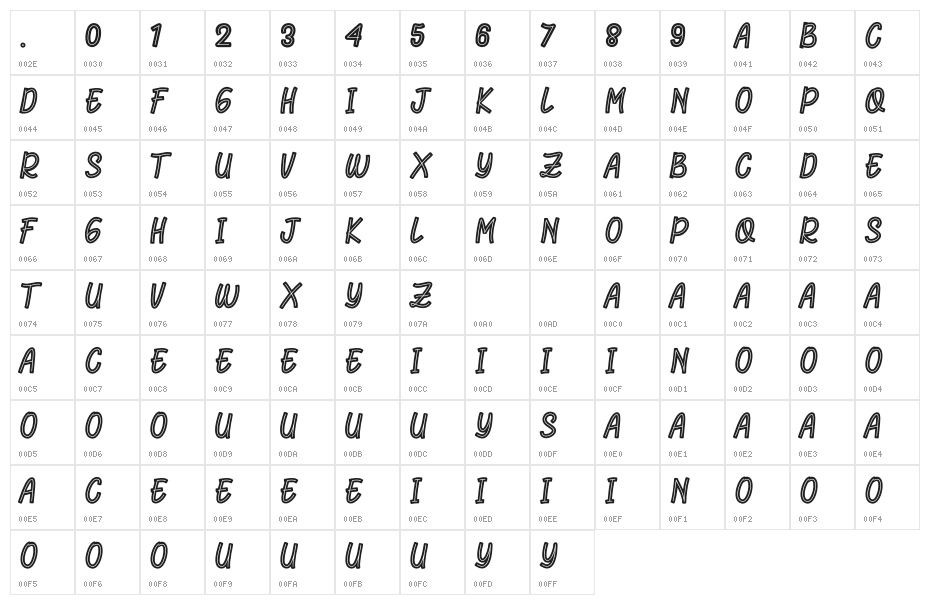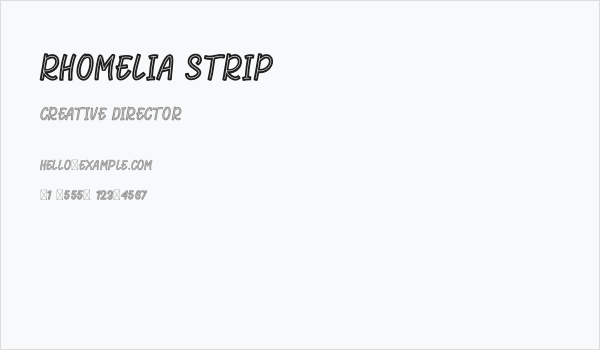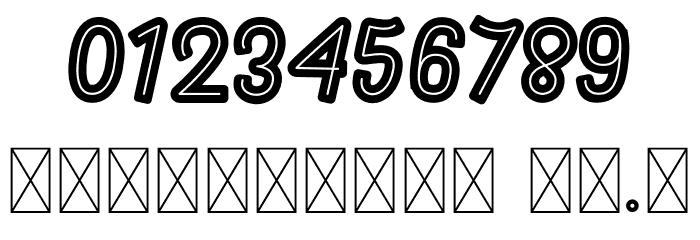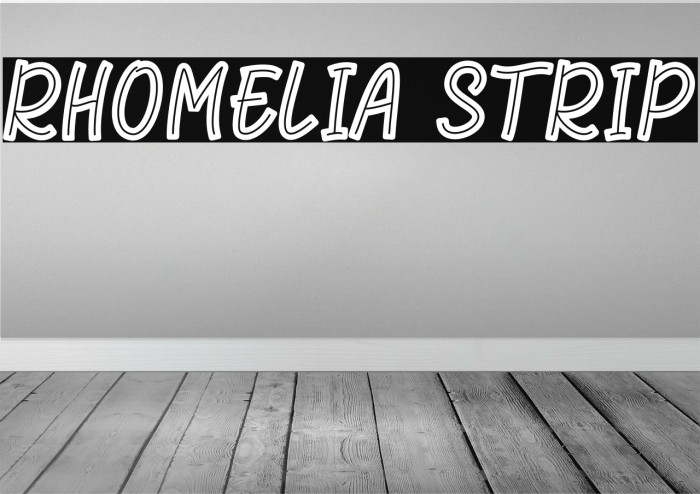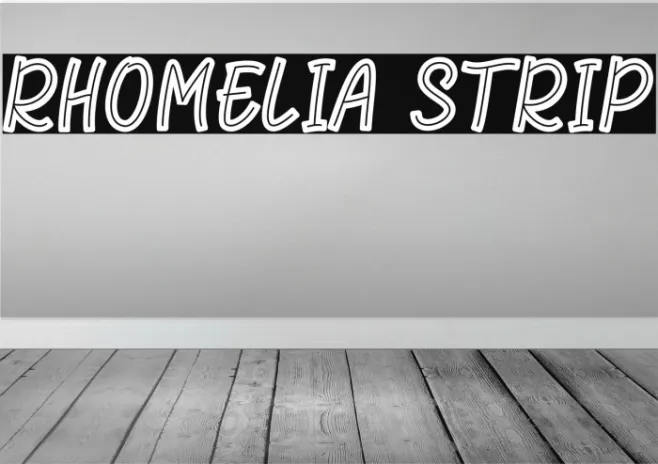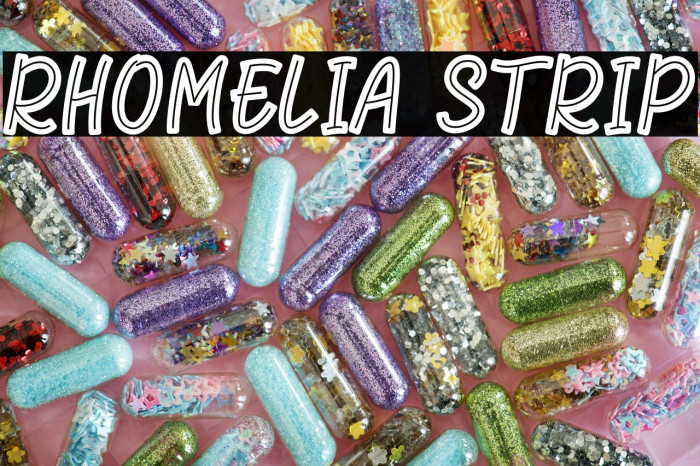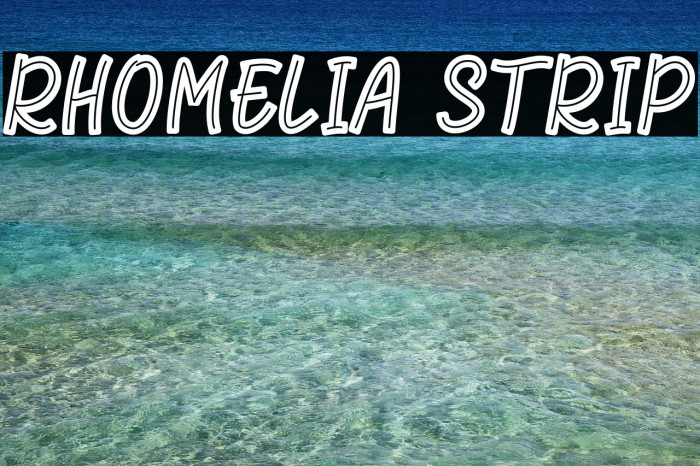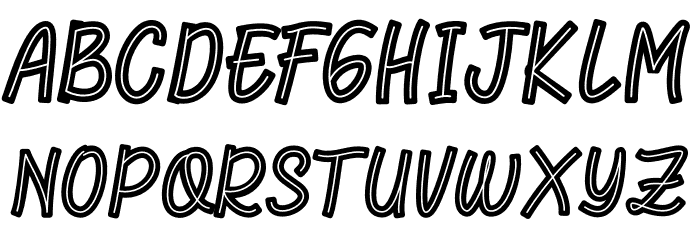
Rhomelia Strip Font
Rhomelia Strip Description
This font features a bold, playful style with a hand-drawn appearance. The characters are outlined, creating a striking contrast between the thick strokes and the inner space. The uppercase and lowercase letters maintain a consistent style, with rounded edges and a slight slant, adding a dynamic feel. Numbers and special characters follow the same design, ensuring uniformity across all elements. The font's overall look is casual and approachable, making it ideal for projects that require a friendly and informal touch.
| Overall Style | Playful, Casual |
| Proposed Projects | Ideal for children's book covers, playful branding, casual invitations, and creative posters. |